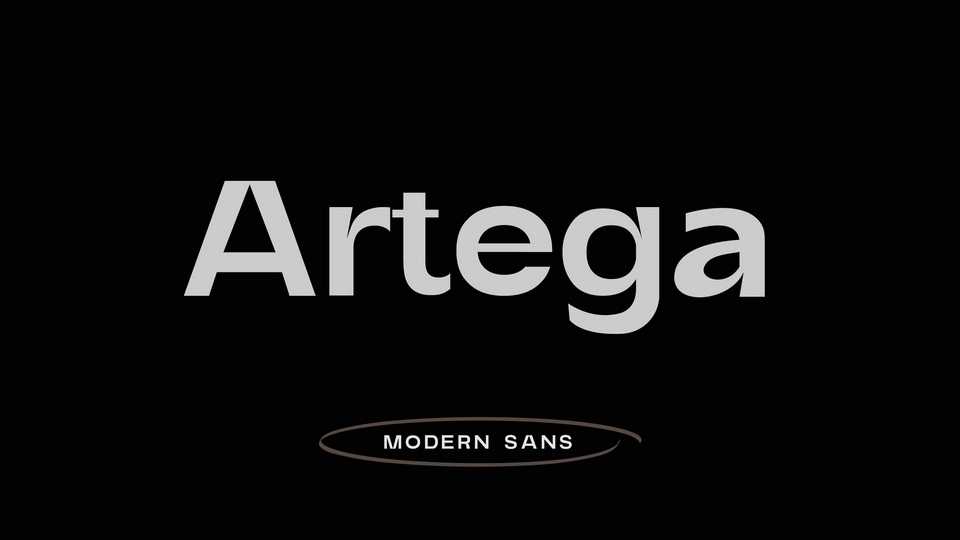
Download Artega font, a geometric, minimalist, and modern sans serif typeface perfect for any designing project you can think of. Add Artega font with confidence to your favorite creative ideas, and it will make your work a true piece of art.
Designer: Yukita Creative